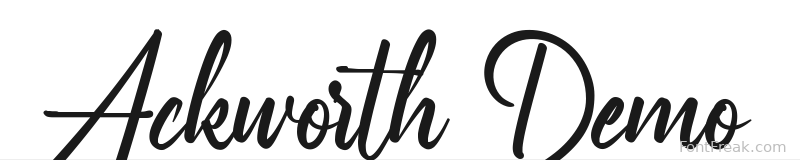
Ackworth Demo
The Ackworth Demo font by Noah Type is a beautifully crafted script font that embodies elegance and sophistication. As a handwritten typeface, it showcases fluid lines and graceful curves that evoke a sense of warmth and personal touch. The stroke weight varies throughout the characters, providing a dynamic contrast that enhances its visual appeal. This font features a slightly narrow spacing, which contributes to its refined look, while its decorative elements, such as swashes and ligatures, add an artistic flair to any design.
Ideal for a variety of creative projects, the Ackworth Demo font is particularly well-suited for wedding invitations, where its romantic style can set the perfect tone for the occasion. It also works beautifully for crafting stylish branding elements, such as logos for boutique shops or artisanal businesses. Moreover, this font can elevate restaurant menus, giving them a chic and inviting appearance that entices customers. Content creators will find it effective for crafting compelling social media graphics and promotional materials, allowing their messages to stand out with a touch of elegance.
The target audience for this font includes graphic designers, small business owners, and content creators who seek to enhance their visual communication. By incorporating the Ackworth Demo font into their projects, they can achieve a distinctive and memorable aesthetic that resonates with their audience.
Overall, the Ackworth Demo font stands out due to its unique combination of elegance and versatility. Its artistic flair and personal touch make it a valuable addition to any designer’s toolkit. For those looking to elevate their projects, the Ackworth Demo font free download offers an excellent opportunity to access a high-quality typeface that can truly enhance their creative expressions.